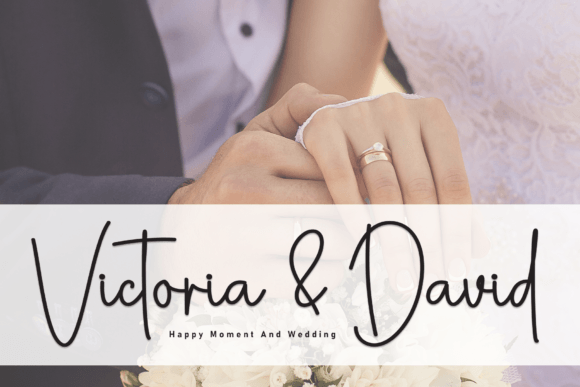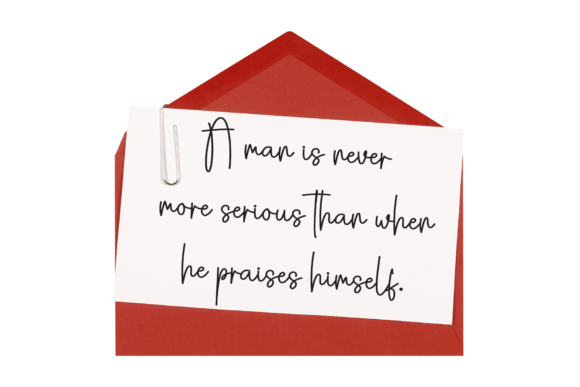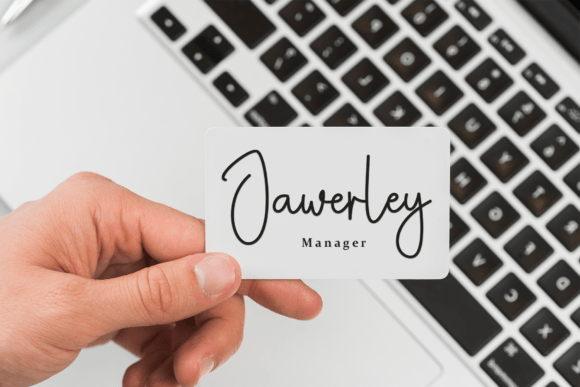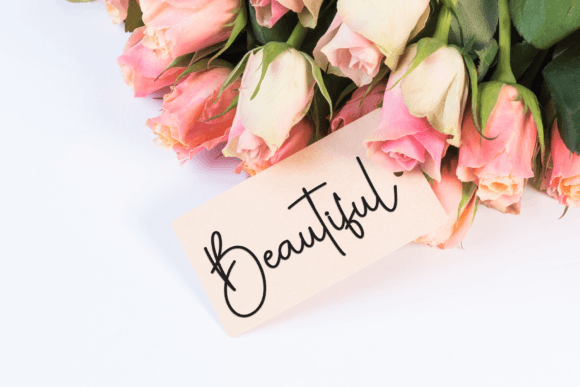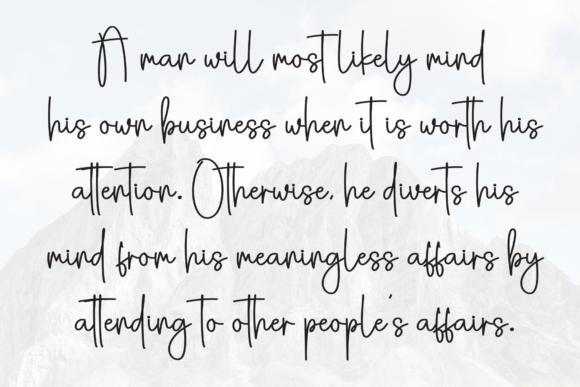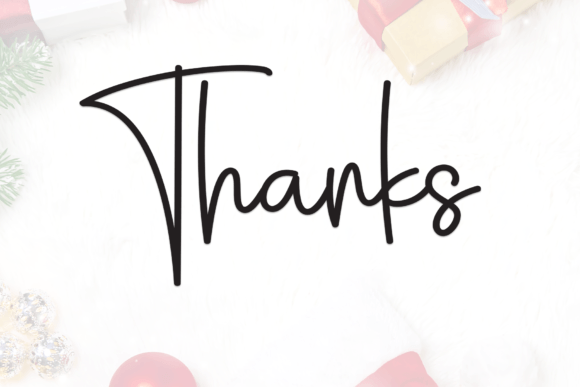
The Magic of Handwritten Fonts: Unwrapping the Christmas Birthday Font
It’s that moment when the creative juices start flowing – you’re brainstorming ideas for a special project, and suddenly, you’re hit with a wave of inspiration. The possibilities seem endless, and your imagination runs wild. For designers, this feeling is a familiar one, and it’s what drives us to create something truly special. In this article, we’ll delve into the wonderful world of handwritten fonts, and shine the spotlight on a particular gem – the Christmas Birthday Font.
This delightful font is a masterclass in natural, unique style, making it the perfect addition to a wide range of designs. From festive holiday cards to heartfelt birthday messages, the Christmas Birthday Font is the ultimate go-to choice. Its versatility is unmatched, and its sweet, friendly tone will make your designs stand out from the crowd. Whether you’re a seasoned designer or just starting out, the Christmas Birthday Font is a valuable tool to have in your arsenal.
Christmas Birthday Font Key Features
- Size: 1 font style with 300 glyphs, including uppercase and lowercase letters, numbers, and punctuation
- Resolution: Scalable vector graphics, suitable for high-resolution displays
- Unique Characteristics: Includes festive and celebratory symbols, such as Christmas trees, presents, and candles, making it perfect for holiday-themed designs
- Language Support: Latin-based languages, including English, Spanish, French, and many others
- Font Style: Decorative, script, and handwritten styles to create a unique and personalized look
Designer Review: Christmas Birthday Font
First off, I have to say that the Christmas Birthday Font has some nice ✨ moments. The playful, whimsical feel is perfect for those who want to celebrate their birthday in the holiday season. The font is quite festive and would be a great addition to any Christmas-themed project or birthday party invitation.
- The font’s irregularities add a nice touch of hand-drawn charm, giving it a more personal feel.
- The range of sizes and weights available allows for a good amount of flexibility in design.
- The font is well-suited for digital use, with clear and crisp rendering at various resolutions.
However, there are some ⚠️ limitations to consider. The font’s uniqueness can also be a drawback, as some users may find it too cutesy or overbearing. Additionally, the font’s lack of standard punctuation and symbol support can be a problem for more complex designs.
Overall, the Christmas Birthday Font is a fun and festive addition to any design project, but it may not be the best choice for more formal or professional work. With a bit of careful planning and design, this font can add a wonderful touch to your holiday or birthday celebrations.
For optimal results, use the Christmas Birthday Font in combination with festive colors and graphics. Common use cases include:
- Creating holiday party invitations and decorations.
- Designing Christmas cards and gift tags.
- Developing social media graphics and ads